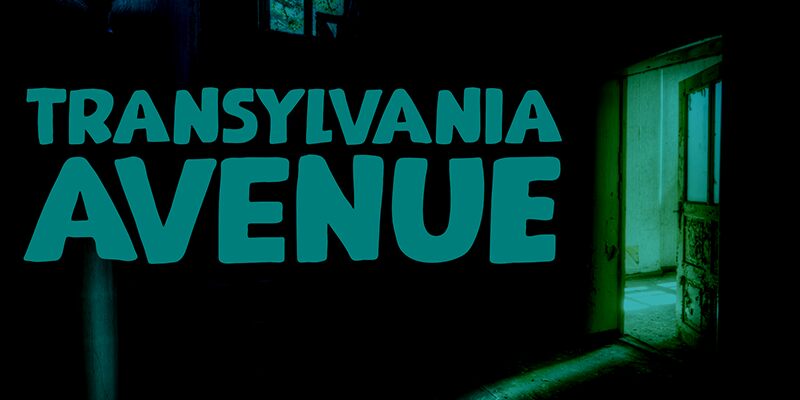
Transylvania Avenue font by David Kerkhoff blends cartoon aesthetics with a bold, retro look. This funky display typeface exudes expressive character and a vintage influence, presenting a quirky and engaging visual presence. Its high-impact design stands out while maintaining its humorous charm.
Use this free font for fun posters, cool advertisements, food packaging items, book titles, product labels, social media post designs, invitation cards, and candy wrappings. It can also be used in branding identities involving logos and packaging patterns. Other interesting uses include badge designs for apparel items like jackets or t-shirts.